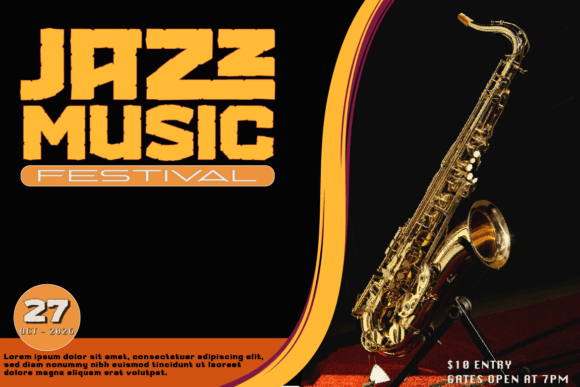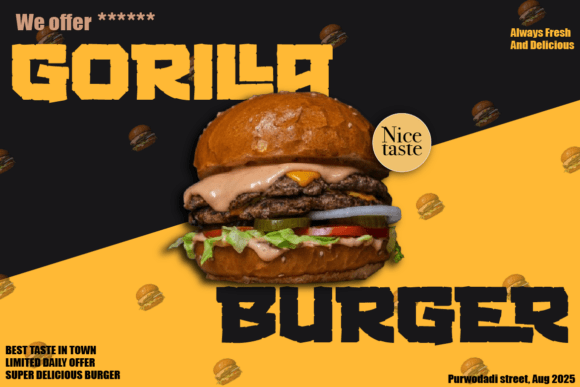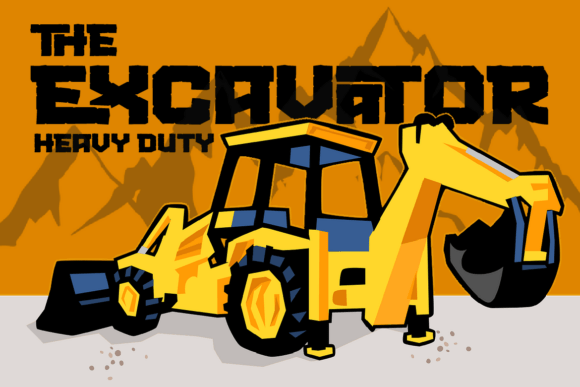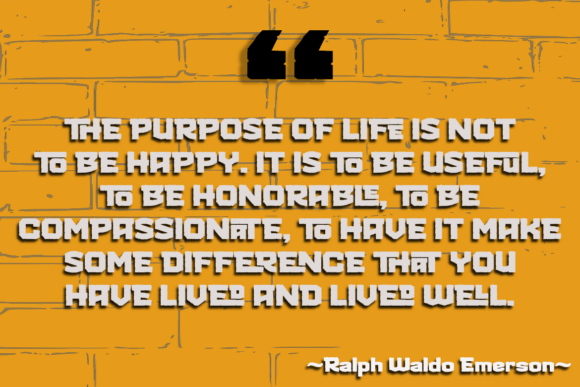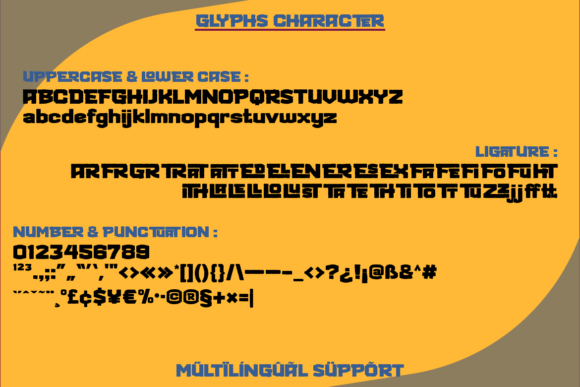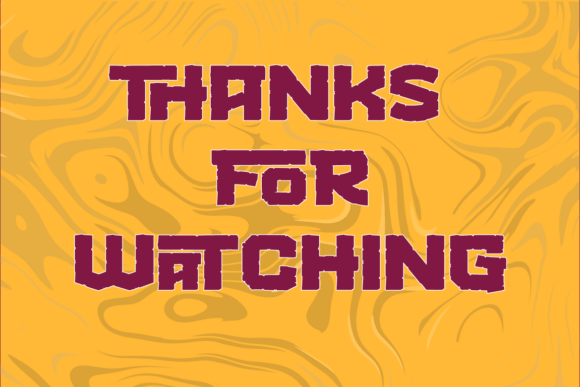
Introduction to Battues Font
The “Battues” font is a bold, rough-textured display font, giving it an epic and dramatic feel.
Its bold letters with slightly beveled edges are perfect for titles, posters, or fantasy and adventure-themed designs The background image, featuring megalithic stones and a mysterious atmosphere, further enhances the character of this font.
Key Features of Battues Font
Why Choose Battues Font?